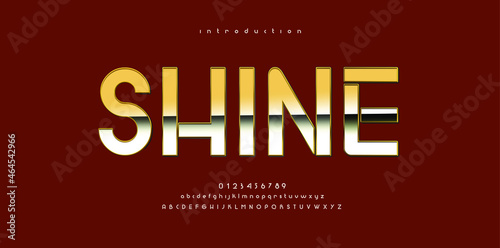
Gold font and alphabet vector, Golden typeface letter and number design. Typography golden font set for logo, Poster, Invitation. vector illustration.